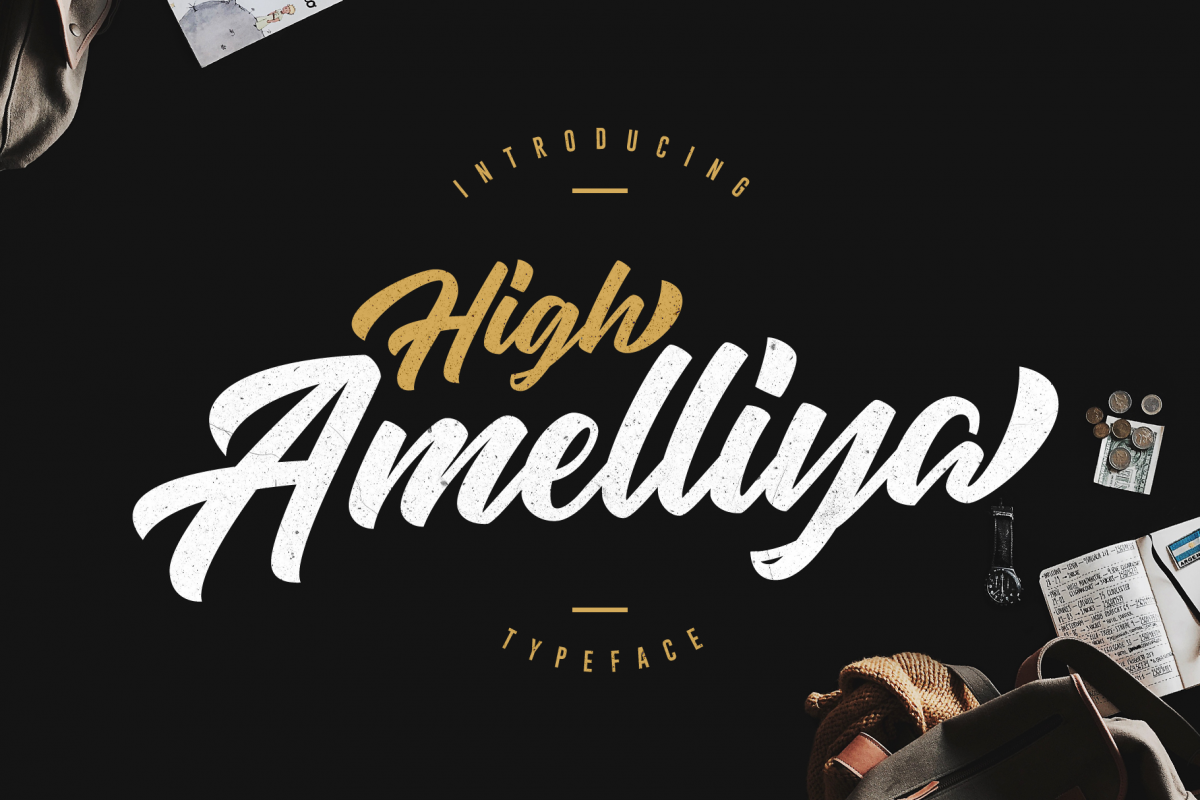
High Amelliya Typeface
Say hello to High Amelliyais a brush font with a which gives an elegant and classy touch to your projects.
High Amelliya font is to use for any kind of design such as branding projects, logos, social media posts, advertisements, product packaging, product designs, labels, poster, photography,  t-shirt, watermarks, stationery, and any projects.
4. The ton of glyphs include ( Uppercase, Lowercase, Ligature, Stylistic Set, lowercase Alternate, Numerals & Punctuations)